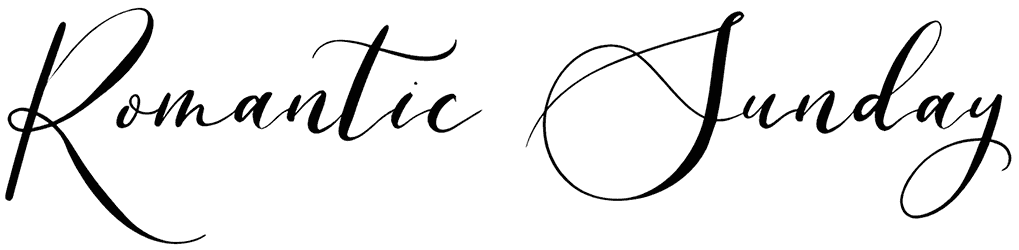
Romantic Sunday Font
In order to fill the gap between the audience and your creative ideas, you need to utilize a lovely script font such as Romantic Sunday that is able to take the quality of your artwork to an extreme.